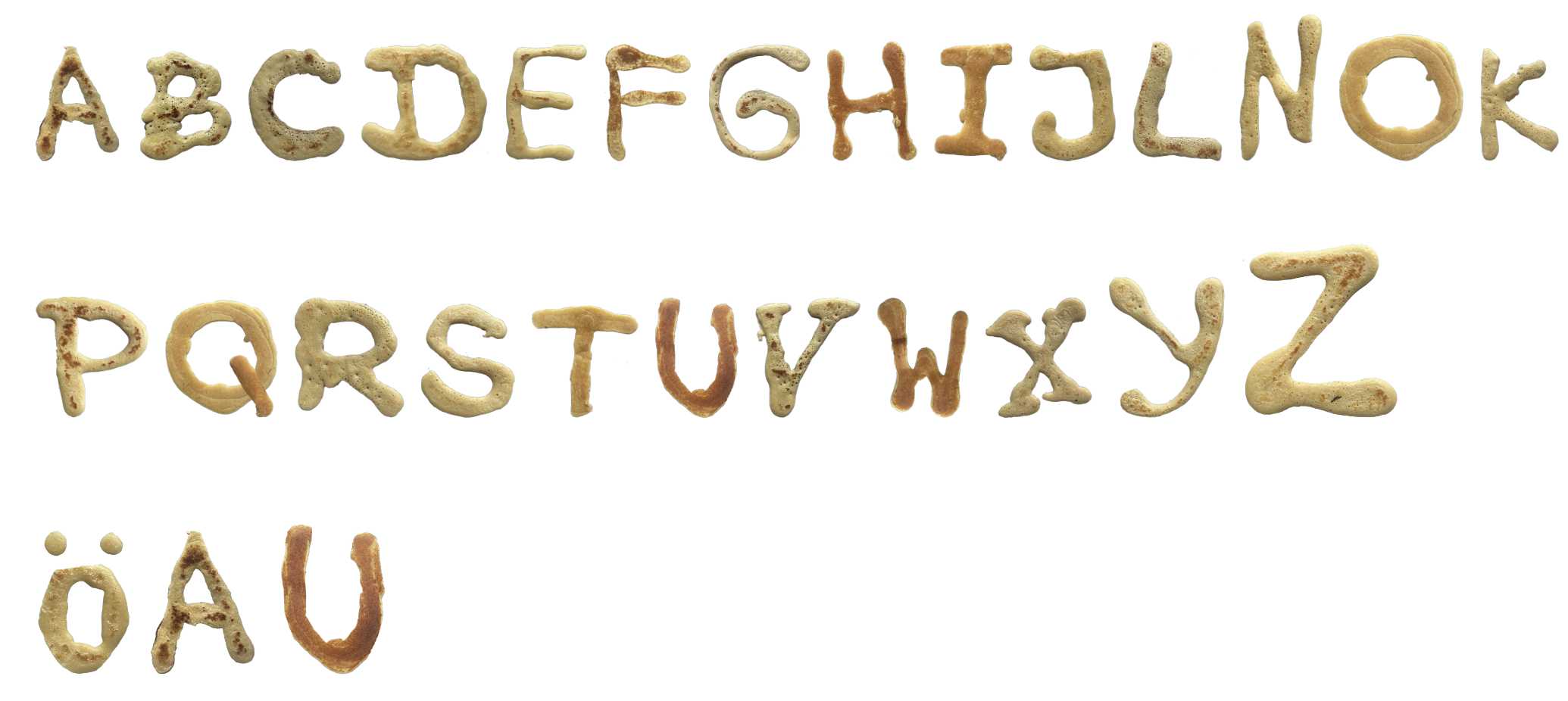
10. PANCAKES
PANCAKES is a hand-crafted display typeface shaped from pancake textures. The alphabet is almost complete, celebrating the charm of slight gaps and imperfections. Its visual softness and organic forms give it a rather delicious character.